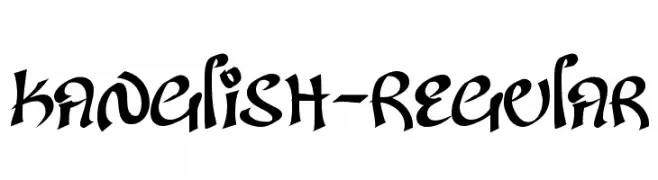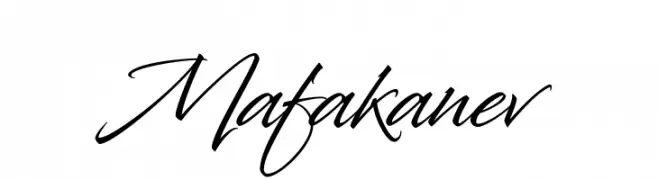
( Tobias Battenberg - www.tobias-battenberg.de )
A bold, geometric font with blocky, angular letterforms and a modern industrial style.
( Typhoon Type - Suthi Srisopha - www.typhoontype.net )
An elegant and flowing script font with classic cursive letterforms.
( Vinay Suresh - www.behance.net/v9v9v9 )
A bold, dynamic font with angular and curved elements, ideal for decorative use.
( Vinay Suresh - www.behance.net/v9v9v9 )
A bold, italic script font with dynamic strokes and sharp edges.
( Youssef Habchi - youssef-habchi.com )
A fluid and elegant script font with dynamic curves and intricate details.
( aurilia - aurilia nlk )
A bold, Blackletter-inspired font with sharp edges and intricate detailing.
( weknow - Wino S Kadir - www.creativefabrica.com/designer/weknow/ )
A bold, italic font with a modern, dynamic style and smooth curves.
( weknow - Wino S Kadir - www.creativefabrica.com/designer/weknow/ )
A bold, italic font with a dynamic and modern style.
( weknow - Wino S Kadir - www.creativefabrica.com/designer/weknow/ )
A bold, modern font with geometric and rounded elements for a dynamic look.
( weknow - Wino S Kadir - www.creativefabrica.com/designer/weknow/ )
A bold, playful font with rounded edges and a geometric structure.